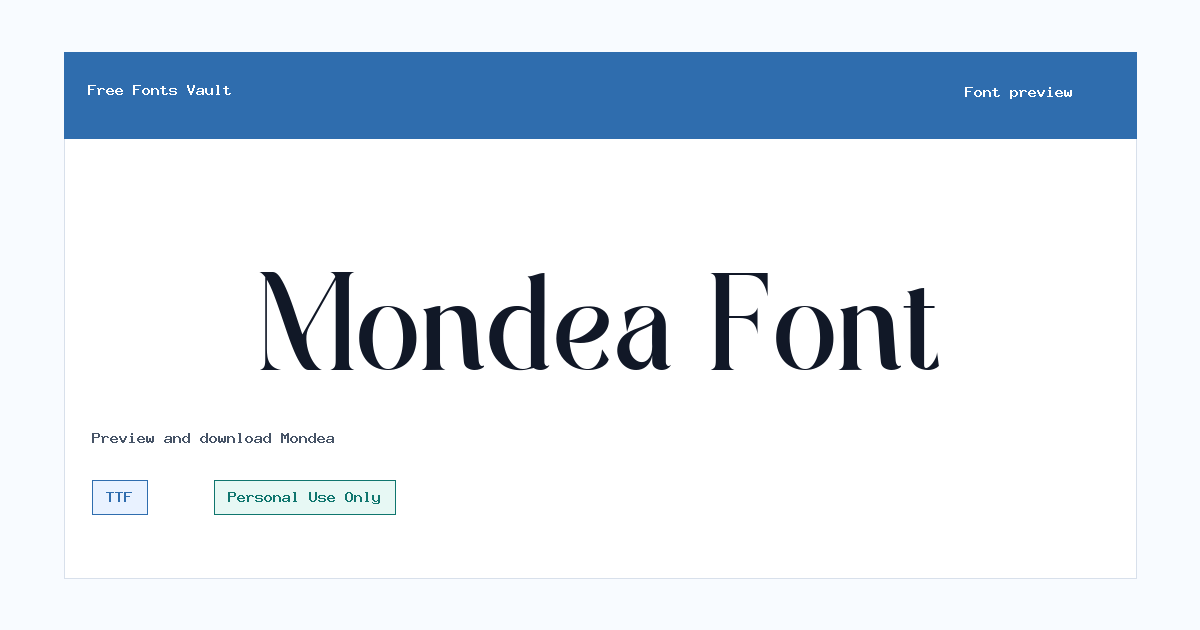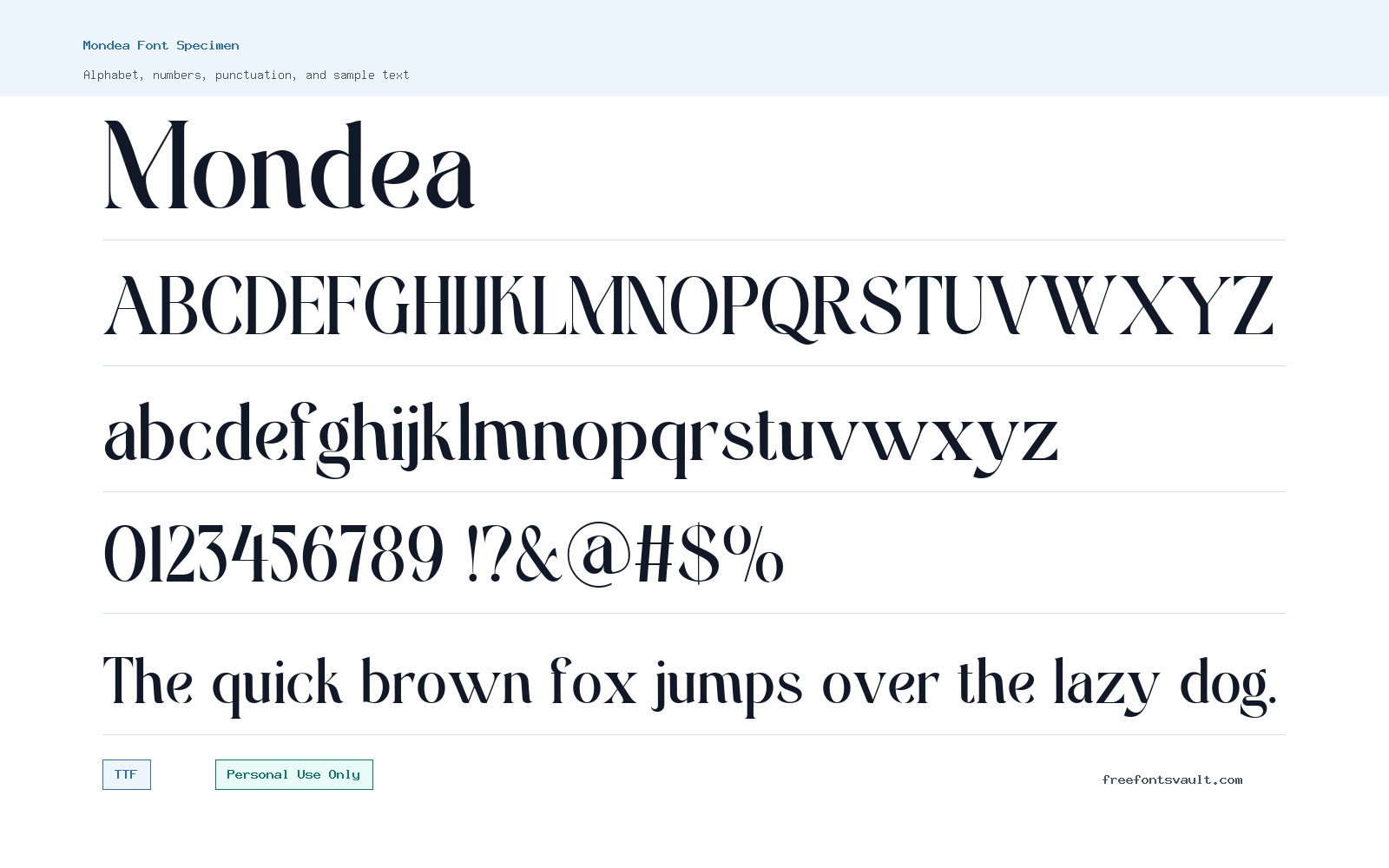
Mondea
- Designer Nofi Sofyan Hadi
Mondea font.
Mondea is a serif font for personal-use design projects where a clean, composed title style is more important than long-form reading. It is available as a regular TTF font file, so visitors can test it quickly in the preview tool before deciding whether it fits a poster, invitation, logo draft, or social graphic.
About Mondea Font
Mondea keeps the focus on a single regular style, which makes it straightforward to try in display settings. As a serif family, it is best approached as a font for words that need shape and presence: names, short headings, editorial-style titles, packaging mockups, quote cards, and personal branding concepts. Because only the regular weight is included, it is worth testing size, spacing, and contrast directly in the preview instead of assuming it will behave like a full text family with multiple weights.
For practical use, start with short text. Type a brand name, event title, initials, or a two-to-five-word headline and check how the letter shapes sit together. If the spacing feels tight, add a little tracking; if the strokes feel delicate at small sizes, keep it for larger headings and pair it with a plain sans serif for body copy. Mondea can work well as the more expressive typeface in a layout, but it should not carry every line on a page unless readability remains strong in your chosen size.
- Suited to short display text such as titles, names, invitations, and logo drafts
- Personal posters, quote cards, and social media graphics
- Invitation titles, brand mockups, packaging concepts, and portfolio experiments
Who designed Mondea?
Mondea is credited to Nofi Sofyan Hadi, with the designer link pointing to Heinzel Studio.
What kind of projects is Mondea best for?
Use Mondea for short display text such as titles, invitations, posters, social graphics, packaging mockups, and logo concepts. Test it carefully before using it for paragraphs or small text.